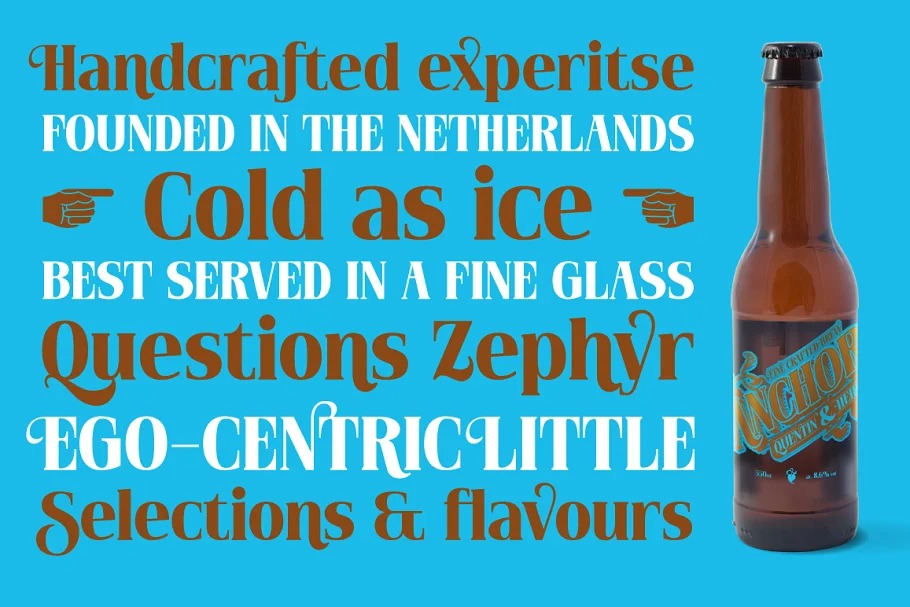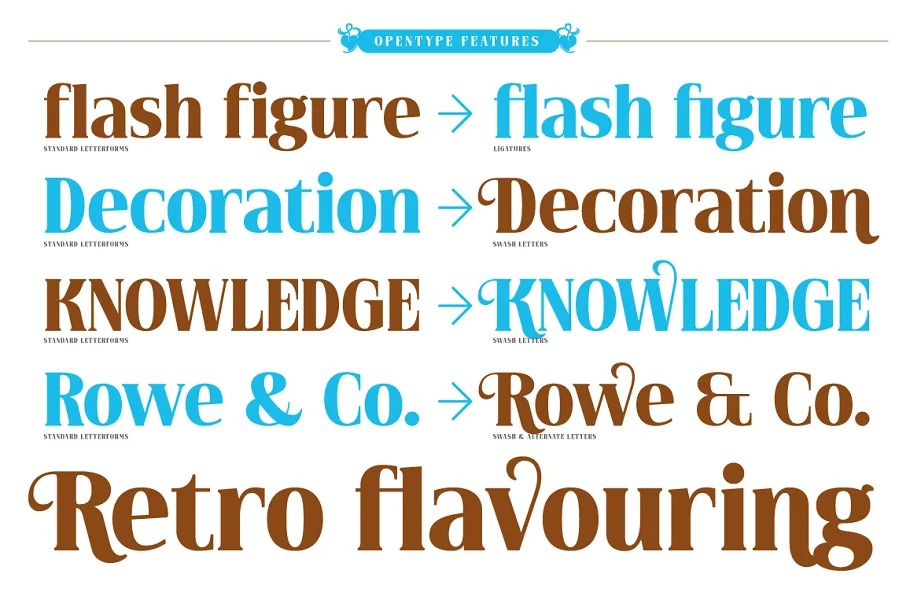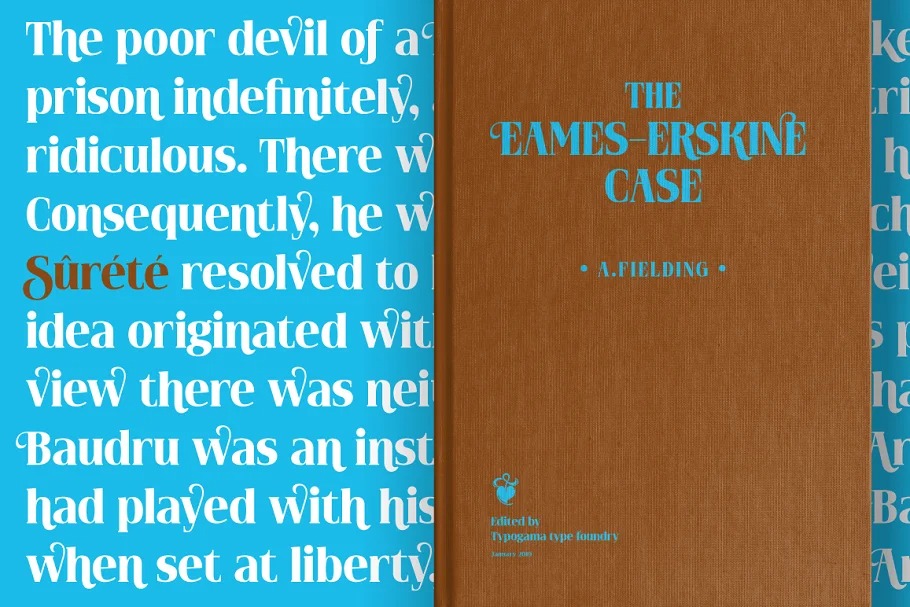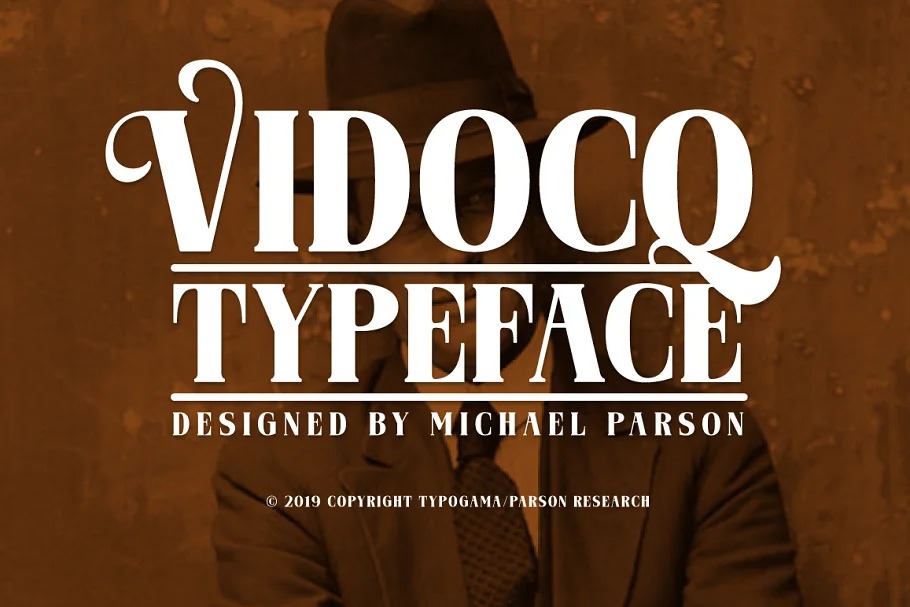
Vidocq Font
Vidocq Serif Font
This is sharp serif font created by Typogama with an elegant feel. Unique character by combining geometric shapes with organic curvy details. It’s rounded forms and dark stroke translate into a bold yet friendly appearance coupled with a narrow proportion that let’s it set well in condensed settings. Thanks to an extended character set and wide range of Opentype features that includes arrows and fleurons, Vidocq was created to allow designers to play with various styles while composing layouts.